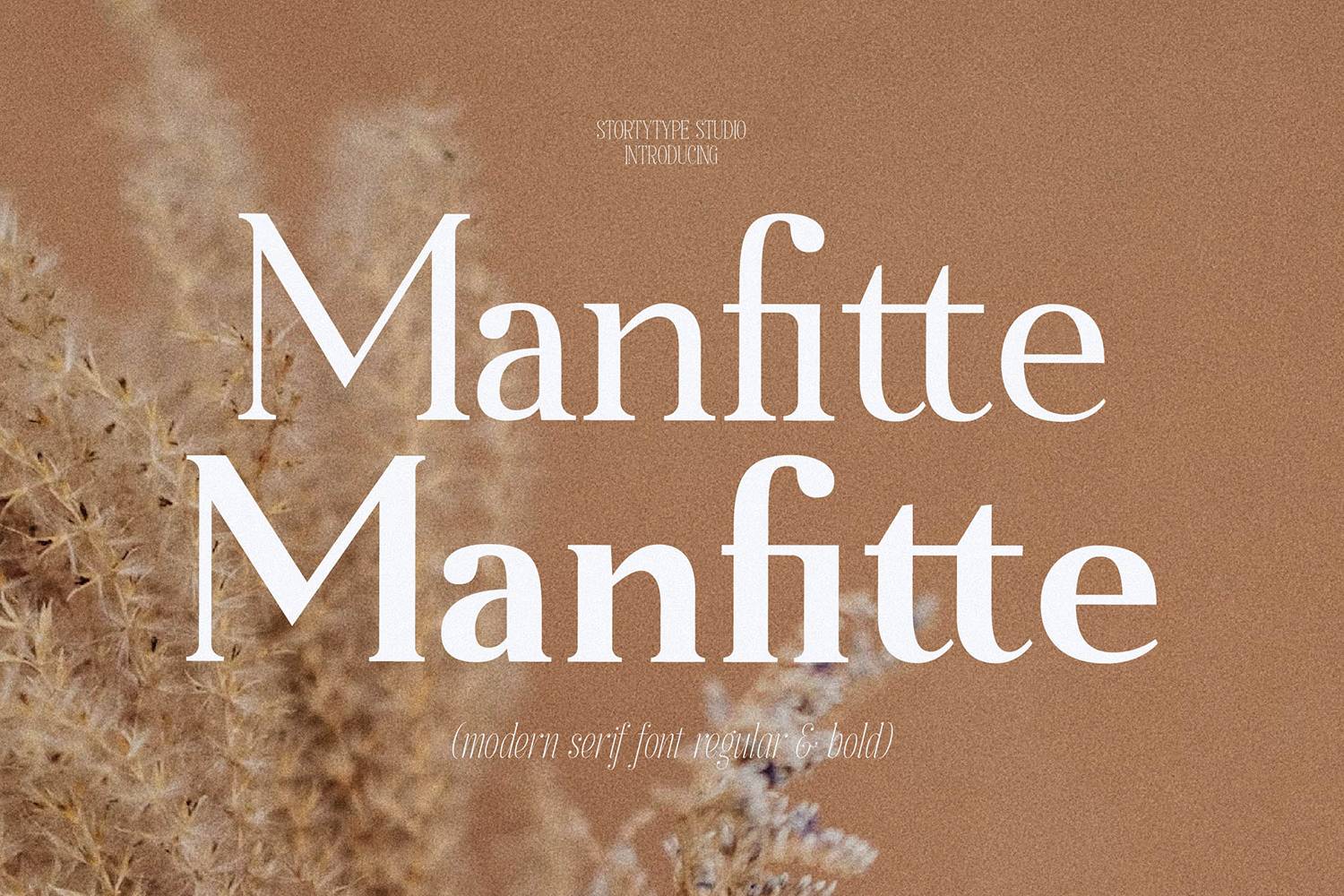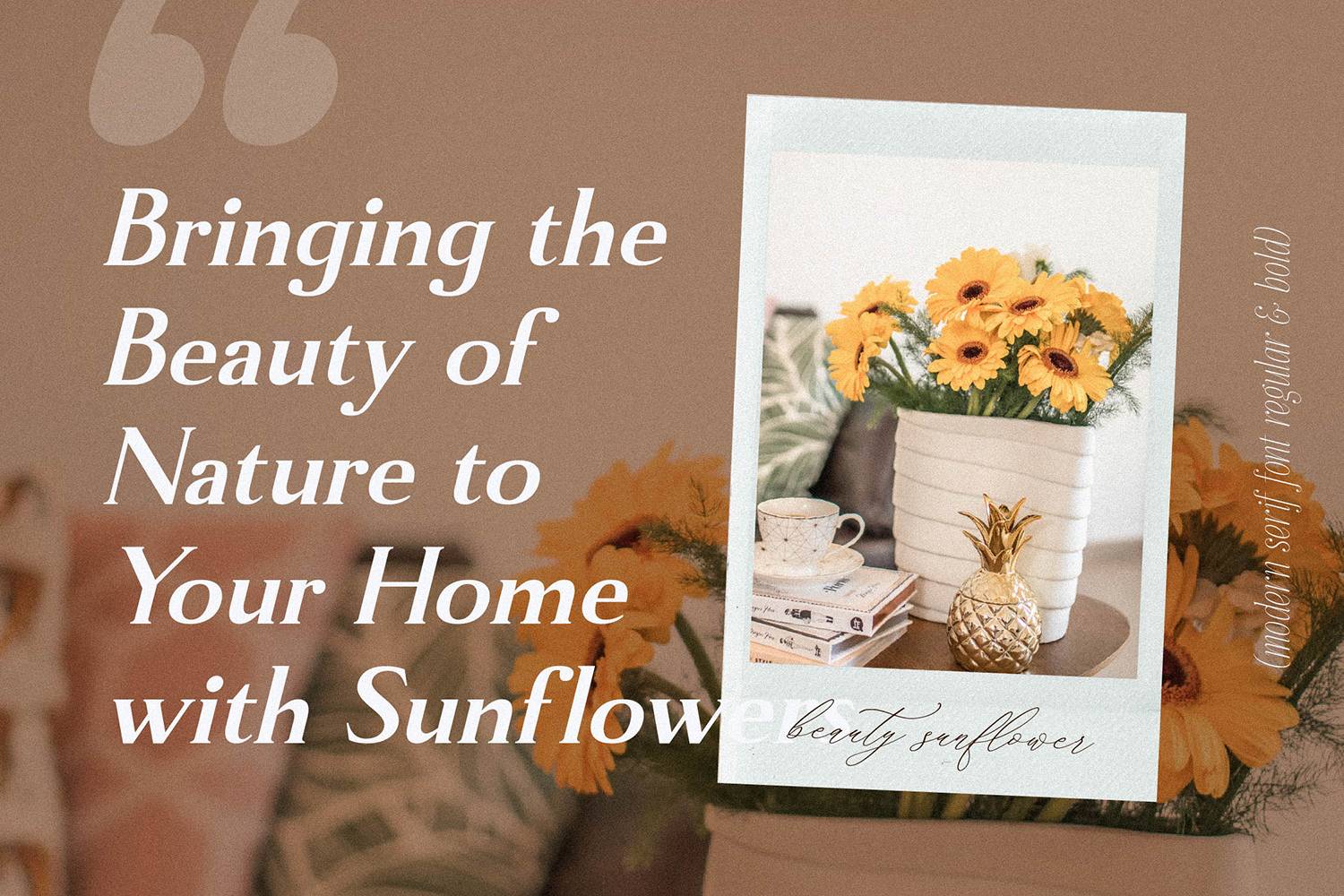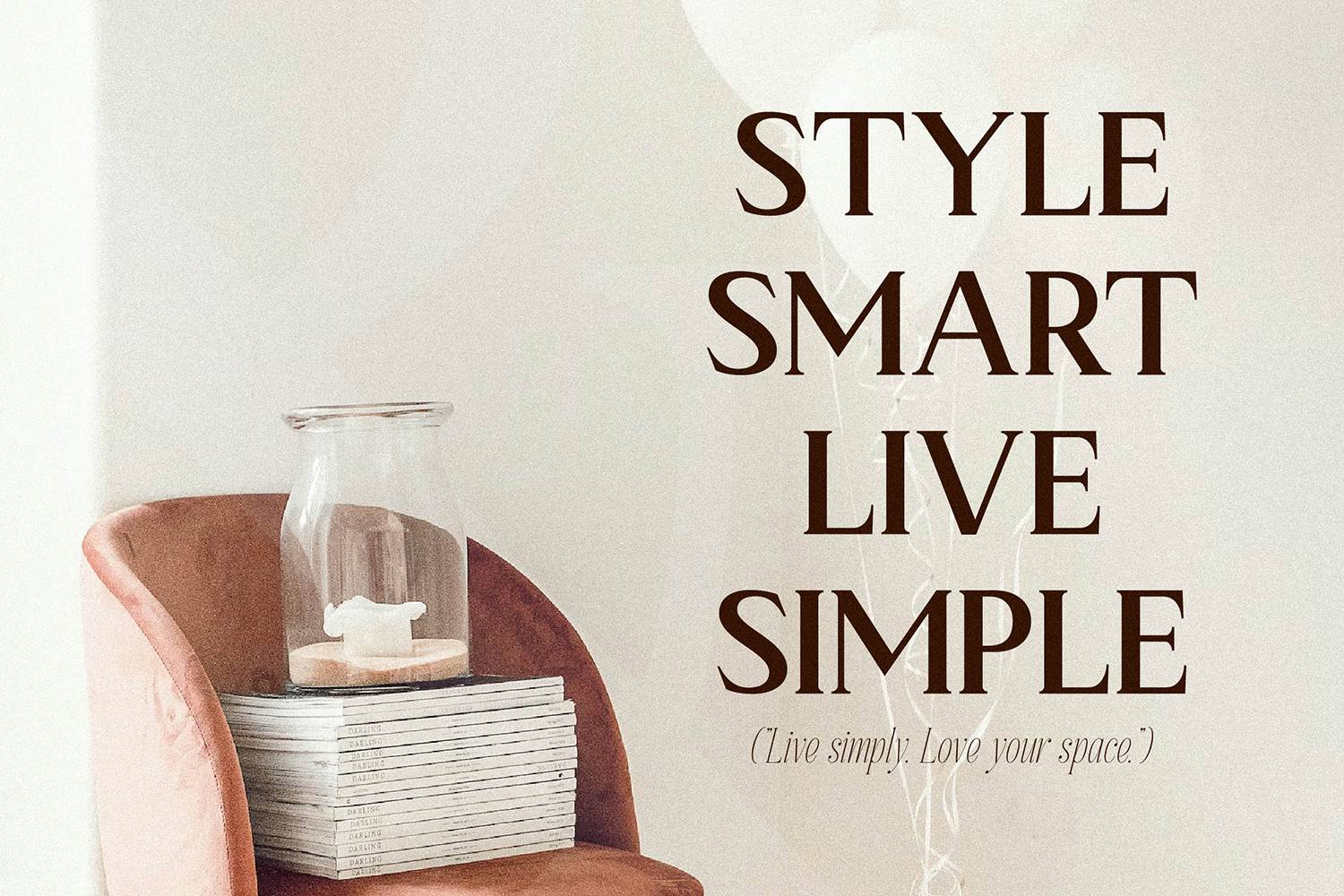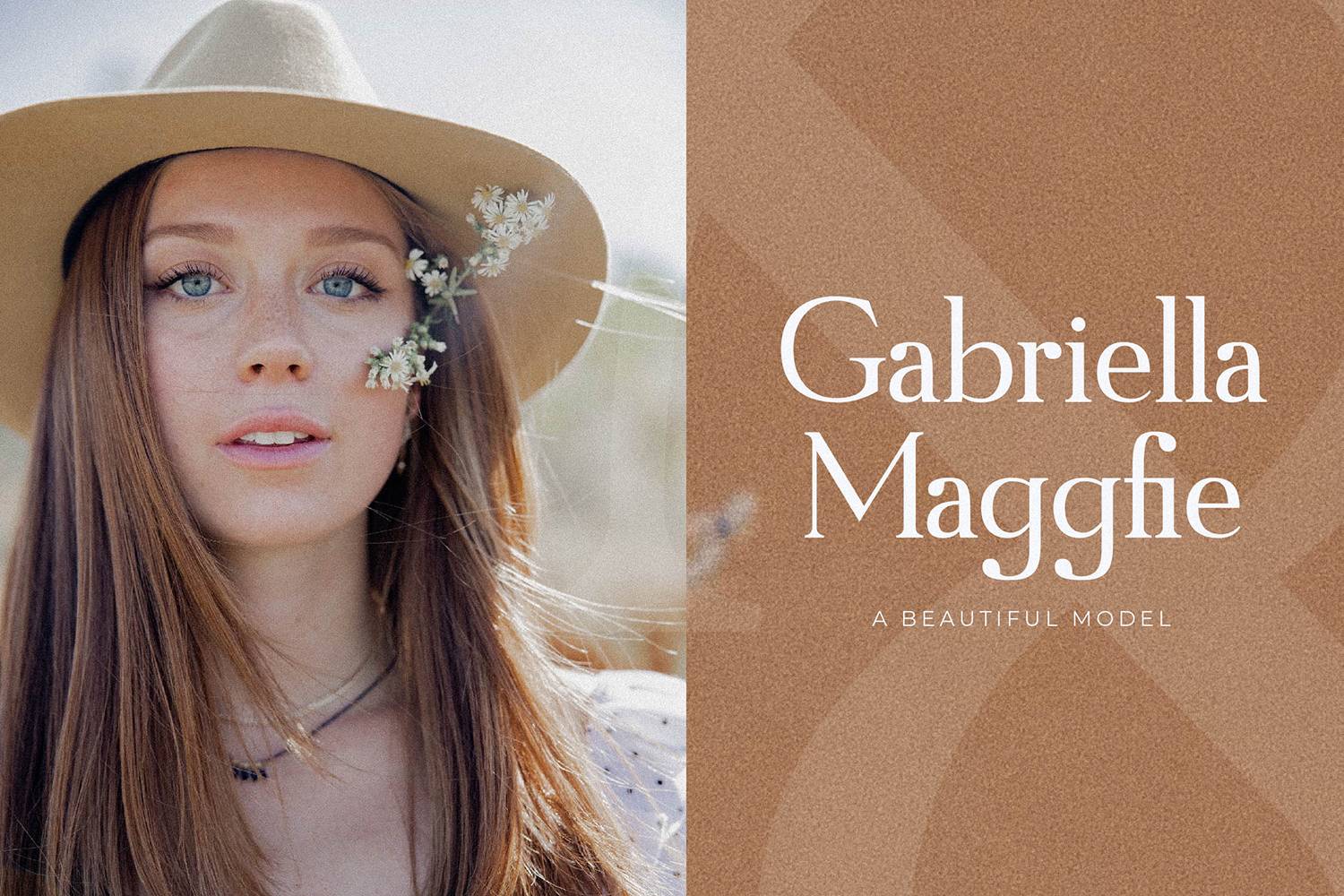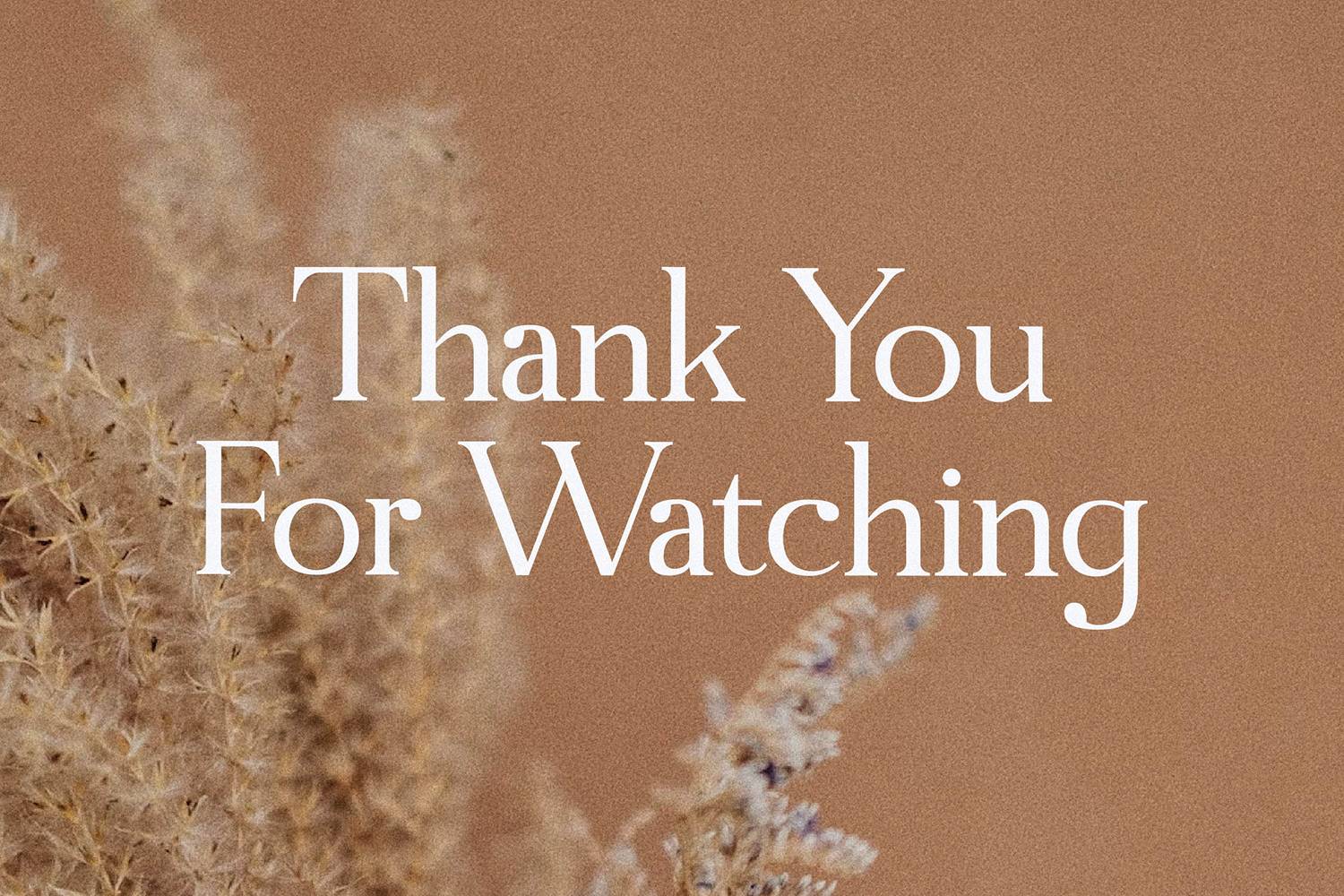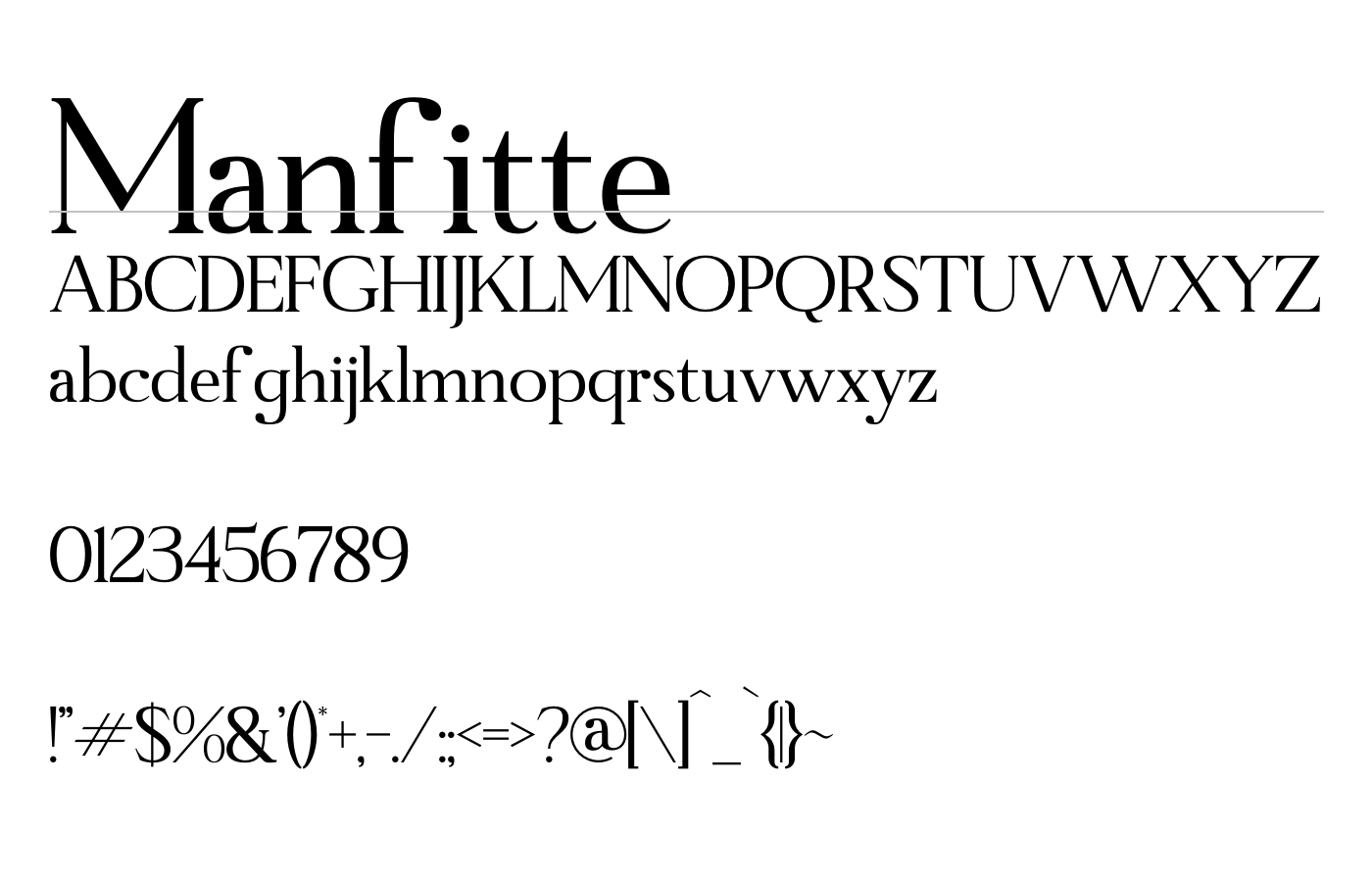
Manfitte is an elegant serif font with a classic and refined look, characterized by its high contrast between thick and thin strokes and sharp, delicate serifs. Its moderate x-height and graceful letterforms, including distinctive double-story a and g, make it well-suited for sophisticated branding, editorial design, and upscale fashion projects. This font conveys a timeless, luxurious feel, perfect for headlines and logos that require a touch of traditional elegance with a modern twist.
Manfitte Font
About Manfitte Font